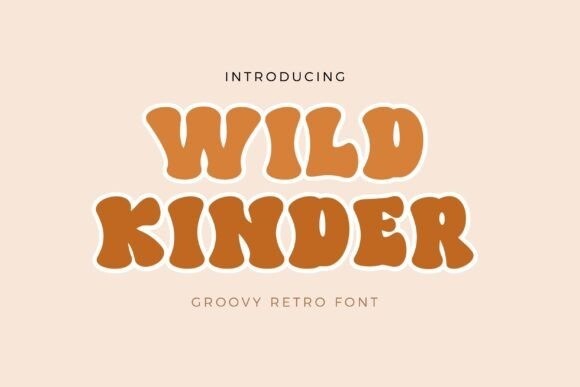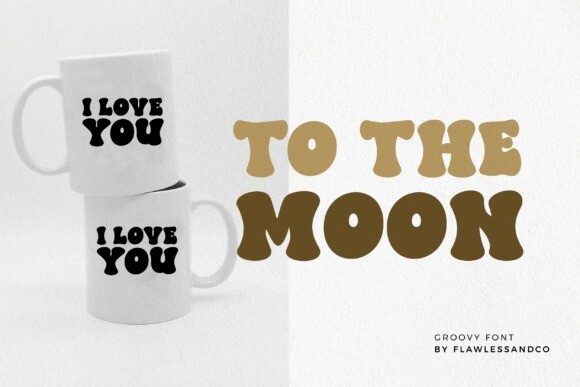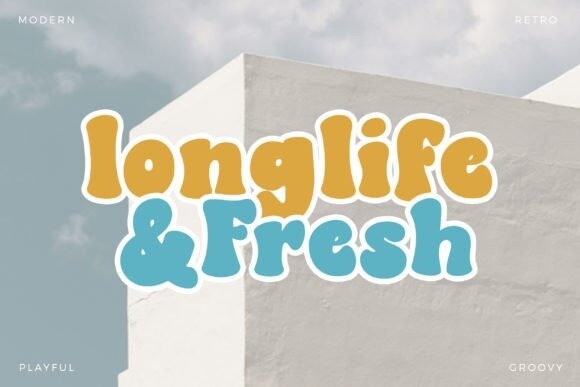
Wild Kinder Font
Wild Kinder Font is a retro, bold and fun display font. With its cool, groovy vibe, this font is perfect for your boho-themed projects such as posters, branding materials, t-shirts, business cards, logos, quotes, and more.